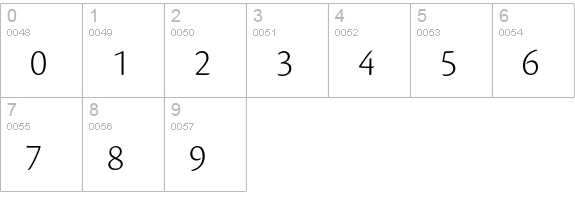
Cronos Pro Light Display is a refined, elegant variant in the Cronos typeface family \xE2\x80\x94 well suited to elegant body text, refined sub-headings, and luxury branding.
Cronos Pro Light Display font is a modern and elegant typeface that exudes sophistication and professionalism. With its clean lines and sleek design, this font is perfect for a wide range of design projects, from branding to editorial layouts. The light weight of the font adds a touch of delicacy and refinement to any text, making it ideal for conveying a sense of elegance and style. Best of all, Cronos Pro Light Display font is available for free download at FontsMarket.com. This means you can easily access this beautiful font and use it in your projects without any cost. Whether you are a designer looking to enhance your creations or a business owner wanting to elevate your brand, Cronos Pro Light Display font is a versatile and stunning option that will surely make a lasting impression. Download it today and add a touch of sophistication to your designs!